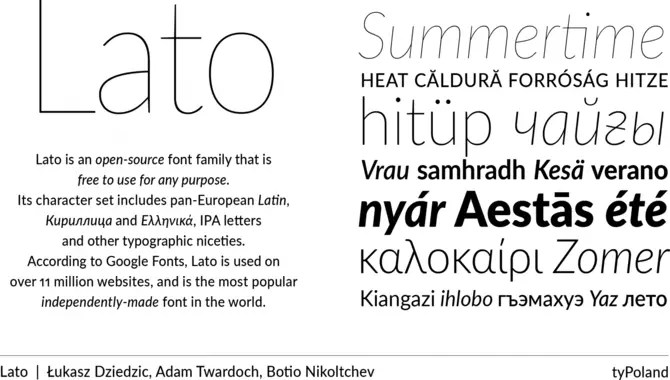
In today’s digital age, the importance of typography cannot be overstated. Fonts are vital in creating a brand’s identity and communicating its message to the target audience.
Lato is a popular font that has gained immense popularity over the years due to its clean and modern look. However, there are instances where designers may not want to use Lato for their projects due to its overuse or simply because they are looking for something different. In such cases, finding a font similar to Lato becomes essential.
This post will discuss fonts similar to Lato and can be used as an alternative. We will delve into the details of each font, highlighting its unique features and how it compares to Lato. Whether you’re a graphic designer, web developer, or simply someone interested in typography, this blog post will provide valuable insights to help you choose the right font for your next project.
What Is The Name Of The Font That Is Similar To Lato?
The name of the font that is most similar to Lato is Helvetica. Helvetica is a sans-serif typeface created in 1957 by Swiss designer Max Miedinger. Helvetica is popular among many designers because of its clean, modern look.
What Are The Characteristics Of This Font?
In typography, a font is a typeface’s size, weight, and style. Each font was a set of types, one piece for each glyph or character. There are three different kinds of fonts. Serif fonts have small lines on the ends of the strokes that make up the letters and symbols. Sans-serif fonts do not have these lines. Script fonts have letters that look like they are written by hand.
There are also different kinds of font weights or thicknesses. Thin fonts have very light strokes, while black fonts have very thick strokes. The different styles of a typeface are also called fonts. For example, italic is a style; if a typeface has an italic font, the letters will be slanted.
Most fonts can be divided into two groups: serif and sans-serif. Serif fonts are the oldest kind of font. They were first used in print. The most favorite serif font is Times New Roman.
Sans-serif fonts are a more modern type of font. They are often used on the web. The most famous sans-serif font is Arial. Script fonts look like they were written by hand. They are often used for formal occasions, such as wedding invitations.
There are also different kinds of font weights or thicknesses. Thin fonts have very light strokes, while black fonts have very thick strokes. The different styles of a typeface are also called fonts. For example, italic is a style; if a typeface has an italic font, the letters will be slanted.
How Does This Font Compare To Lato?
When it comes to choosing a font, there are a lot of factors to consider. But sometimes, you must know how one font stacks up against another. So, let’s compare the popular font Lato to some other fonts, shall we? Lato is a sans-serif font designed by Łukasz Dziedzic in 2010. It’s a very versatile font that can be used for various purposes. Lato is available in various weights and styles for everything from body copy to headlines.
One thing to remember when comparing Lato to other fonts is that it is very readable. This is because of the wide range of available weights and styles. Lato also has a clean and modern look, which can be a plus or a minus, depending on your project. So, How does Lato stack up against some other popular fonts?
Lato is similar to Open Sans in that they are both very readable sans-serif fonts. However, Lato is a bit more versatile than Open Sans because it comes in a wider range of weights and styles. Lato is also similar to Roboto in that they are both sans-serif fonts with a clean and modern look.
However, Lato is a bit more readable than Roboto, making it a better choice for body copy. So, there you have it! A compare Ison of the popular font Lato to some other popular fonts. What do you think? Do you have a favorite?
3.Are There Any Similar Fonts To Lato?
Ans: Several fonts are similar to Lato, such as Roboto, Open Sans, Source Sans Pro, and Montserrat.
5.Is The Lato Font Suitable For Body Text?
Ans: Yes, Lato font is a versatile typeface that works well for both headings and body text. Its legibility and readability make it a popular choice for long-form content.